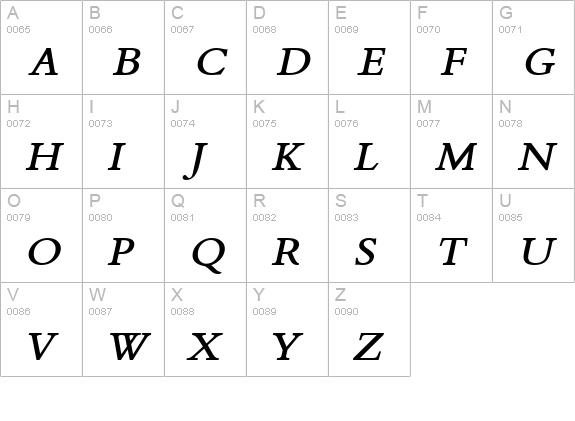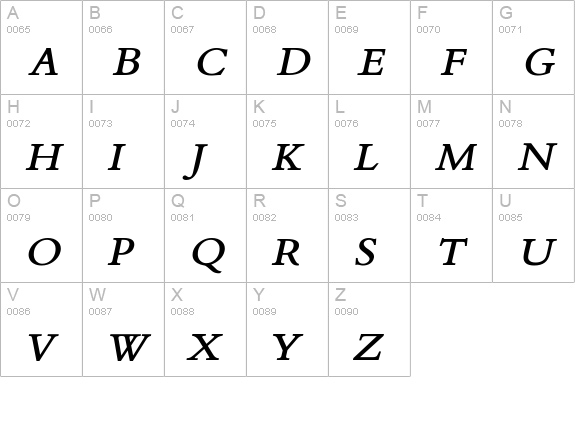
Nadine 2 BoldItalic Font Details
Introducing Nadine 2 BoldItalic font, a striking and elegant typeface designed to make a bold statement. With its sleek and modern design, Nadine 2 BoldItalic is perfect for adding a touch of sophistication to any project. The unique combination of bold lines and italic styling creates a dynamic and eye-catching look that is sure to stand out. Best of all, Nadine 2 BoldItalic font is completely free to download at FontsMarket.com. Whether you're working on a design project, creating marketing materials, or just looking to add a touch of flair to your personal projects, Nadine 2 BoldItalic is the perfect choice. Download it today and elevate your designs with this stunning font.